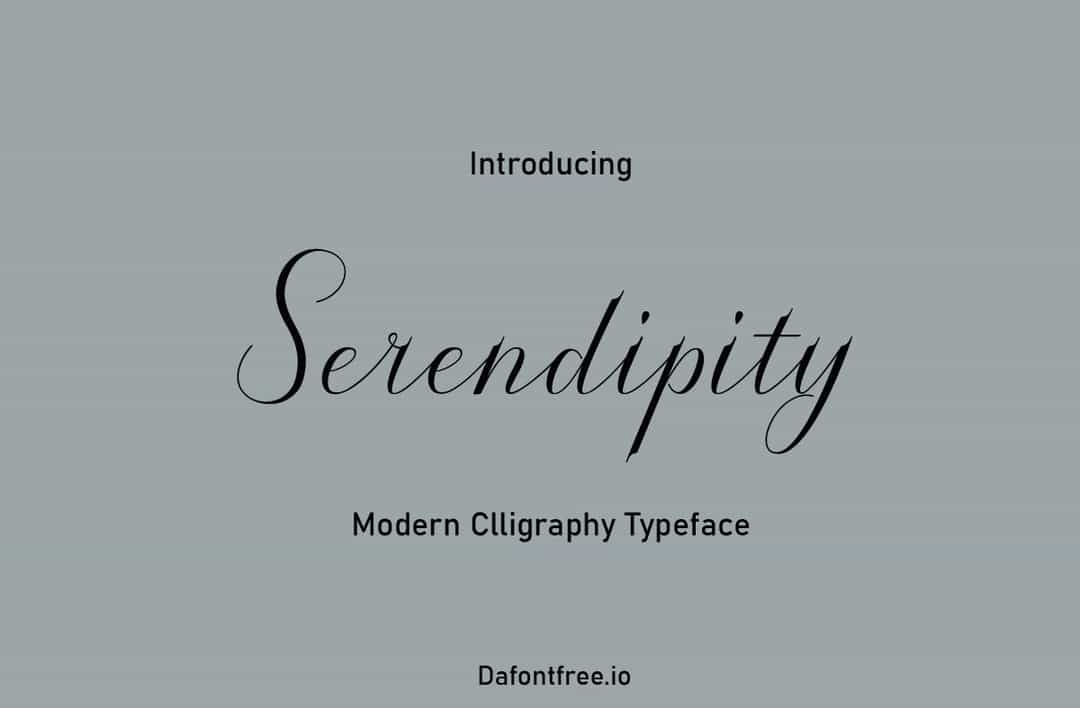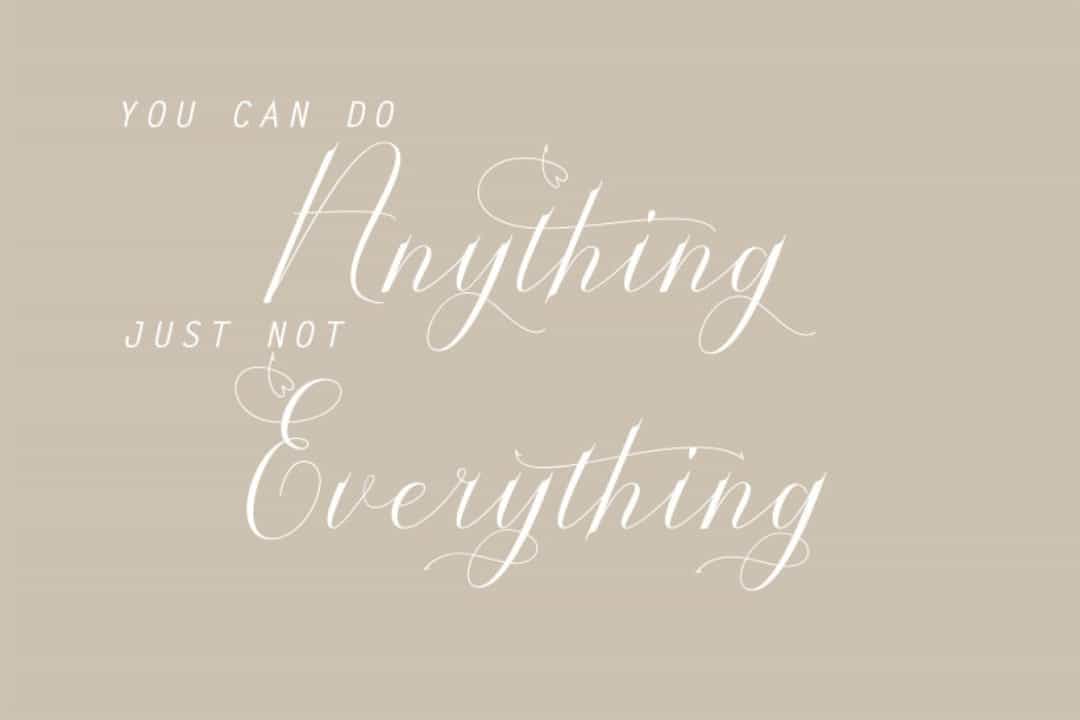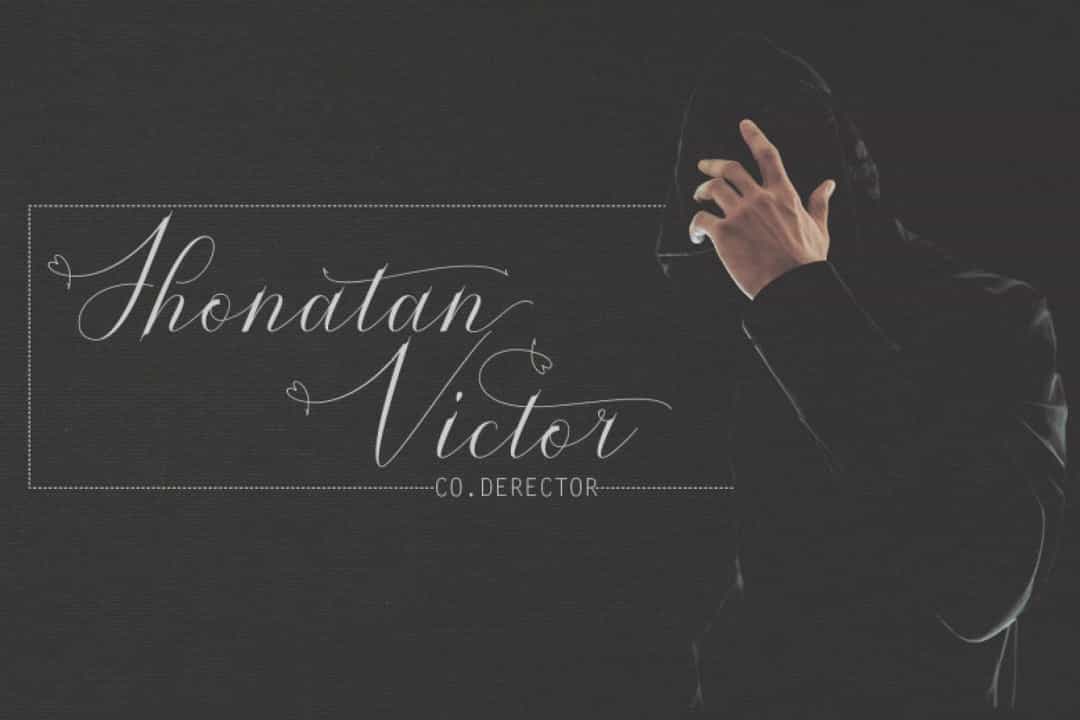
Serendipity Font is another lovely modern calligraphy script typefaces, which is combining the style of classic calligraphy with an modern style. combines from copperplate to contemporary typeface with a dancing baseline, modern and elegant touch. including initial and terminal letters, alternates, ligatures and multiple language support.